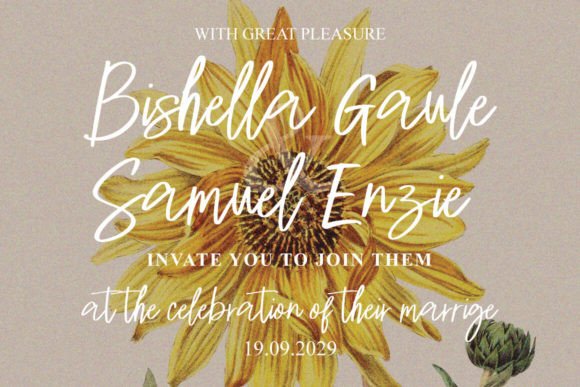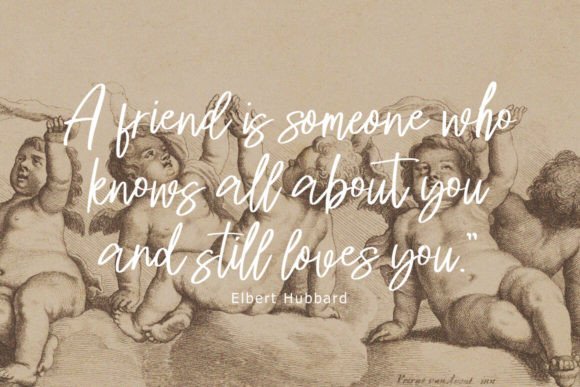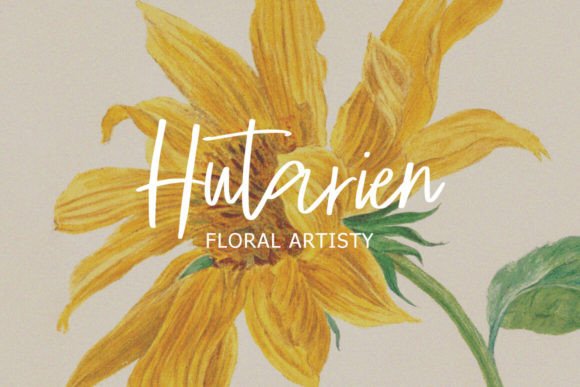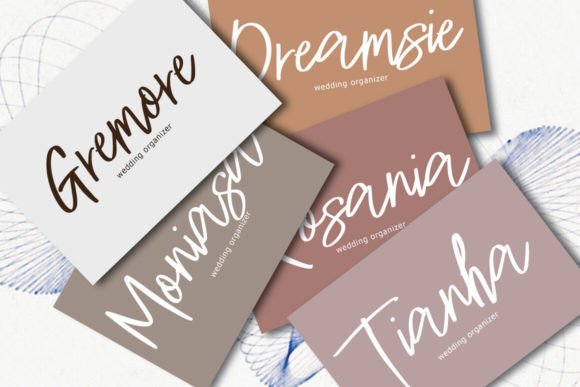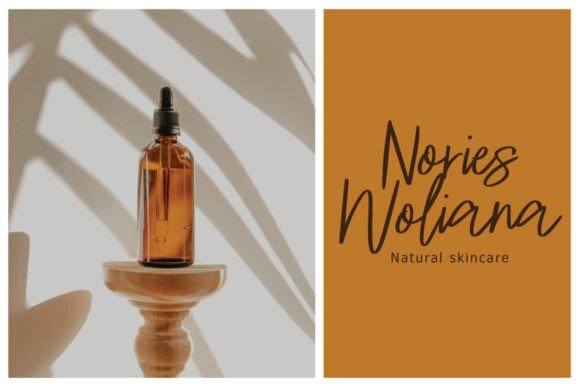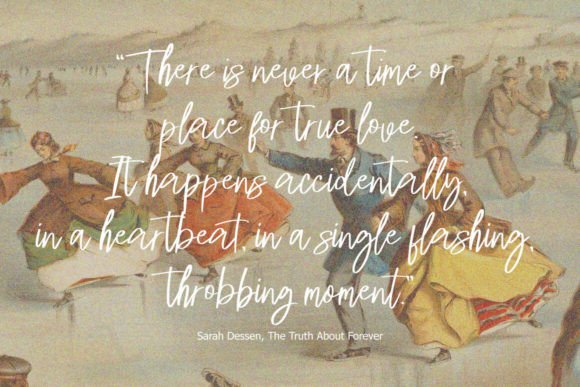
Dedaily Font: Elevate Your Designs with a Handmade Signature Style
Are you tired of using ordinary fonts that fail to make your designs stand out? Look no further than Dedaily Font, a stunning signature font that adds a touch of elegance and sophistication to any project. With its handmade signature style, decorative characters, and dancing baseline, Dedaily Font is perfect for creating beautiful invitations, greeting cards, branding materials, business cards, quotes, posters, and more.
What Makes Dedaily Font Special?
Dedaily Font is more than just a font – it’s an experience. Its unique handmade signature style gives your designs a personal touch that’s sure to captivate your audience. The font comes with 200+ glyphs, including alternative characters that can be accessed using Open Type features such as Swash, Stylistic Sets, Stylistic Alternates, and Ligature. This means you have endless possibilities to customize your text and make it truly unique.
Open Type Features for Endless Customization
PUA Unicode for Easy Access
Dedaily Font has been given PUA unicode, which means that all the alternate characters can be easily accessed in full by crafters and designers. No more tedious searching for the perfect character – with Dedaily Font, you have everything you need at your fingertips.
Whether you’re a professional designer or a crafter looking to add a personal touch to your projects, Dedaily Font is the perfect choice. Its unique handmade signature style and endless customization options make it ideal for a wide range of projects, from wedding invitations to branding materials. With Dedaily Font, you can:
- Create stunning invitations and greeting cards that will leave a lasting impression
- Elevate your branding materials with a touch of elegance and sophistication
- Add a personal touch to your business cards and quotes
- Design beautiful posters and flyers that will grab attention
Key Features of Dedaily Font
- Handmade signature style
- Decorative characters and dancing baseline
- 200+ glyphs, including alternative characters
- Open Type features, including Swash, Stylistic Sets, Stylistic Alternates, and Ligature
- PUA unicode for easy access to alternate characters
In conclusion, Dedaily Font is a game-changer for designers and crafters looking to add a touch of elegance and sophistication to their projects. With its handmade signature style, decorative characters, and endless customization options, Dedaily Font is the perfect choice for anyone looking to create stunning designs that will leave a lasting impression. So why wait? Get your hands on Dedaily Font today and take your designs to the next level!